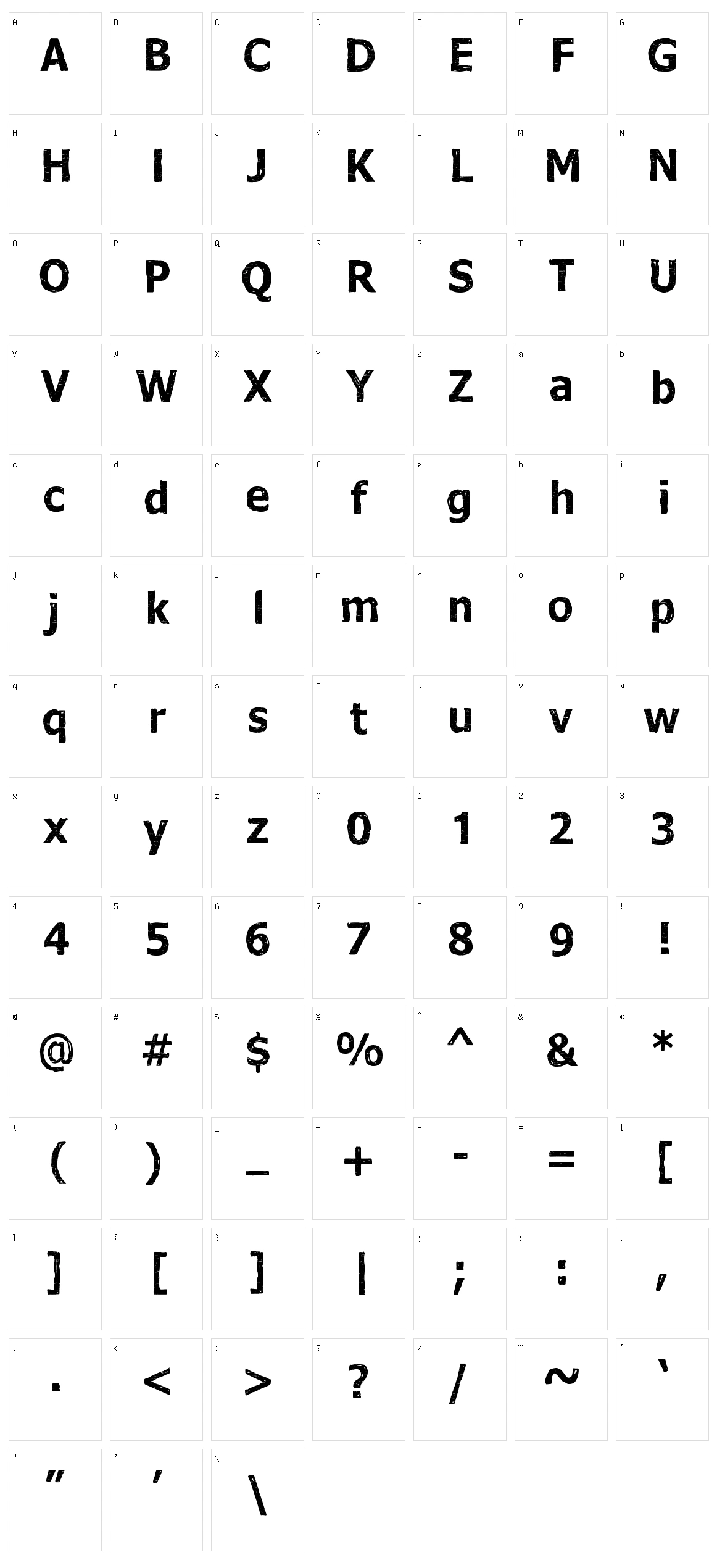
The free font Dead End is carefully designed by junkohanhero, showcasing a thoughtful balance of creativity and usability and falls under the Eroded font style. When you download the ZIP file, it contains only 337.95 KB of font files, making it lightweight and quick to download. Please review the license details below to understand permitted usage and distribution rights. If license information is not available, we recommend using this font for personal projects only or contacting the author directly for commercial usage permissions.